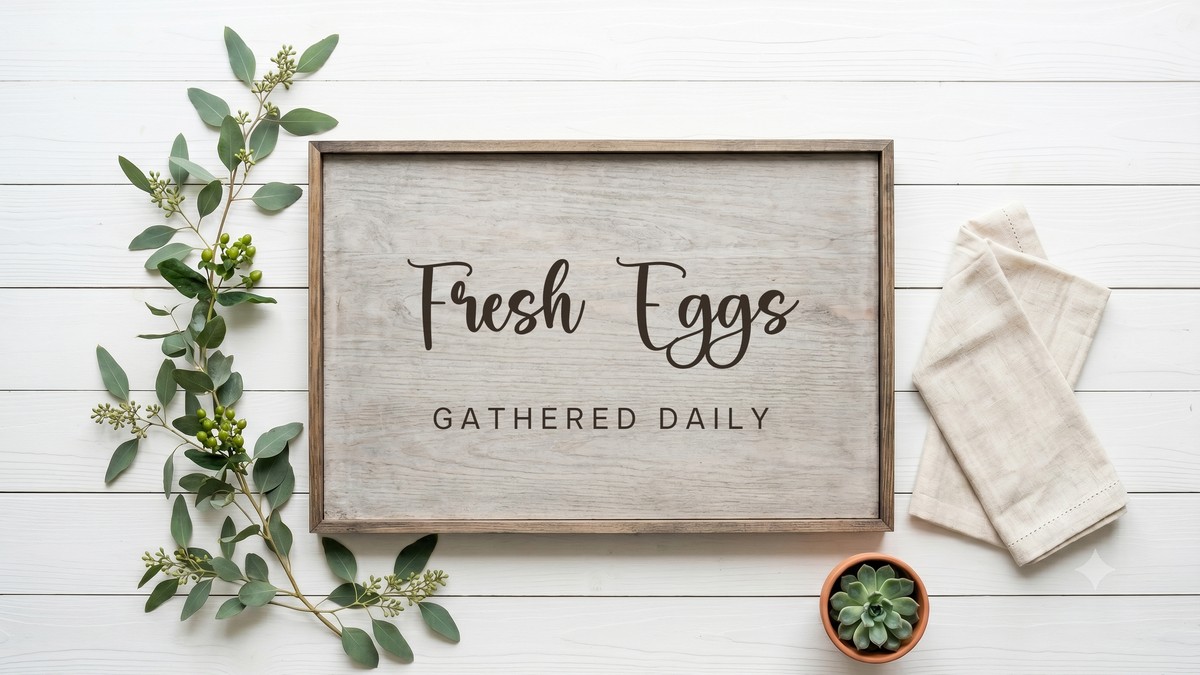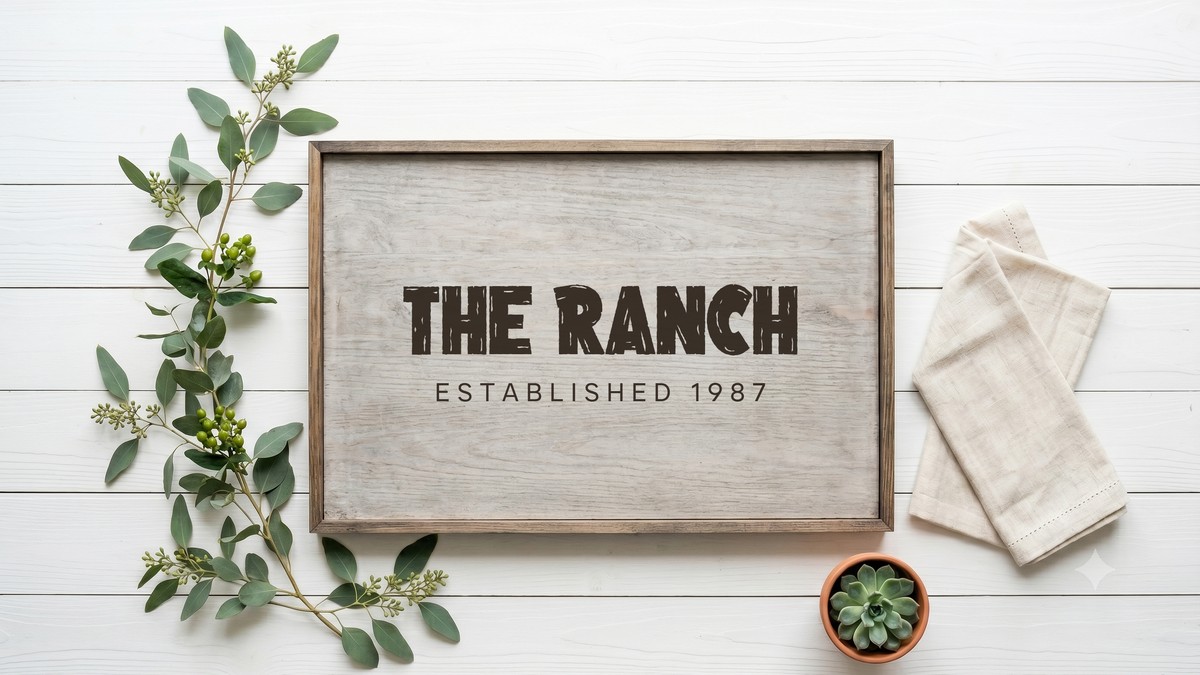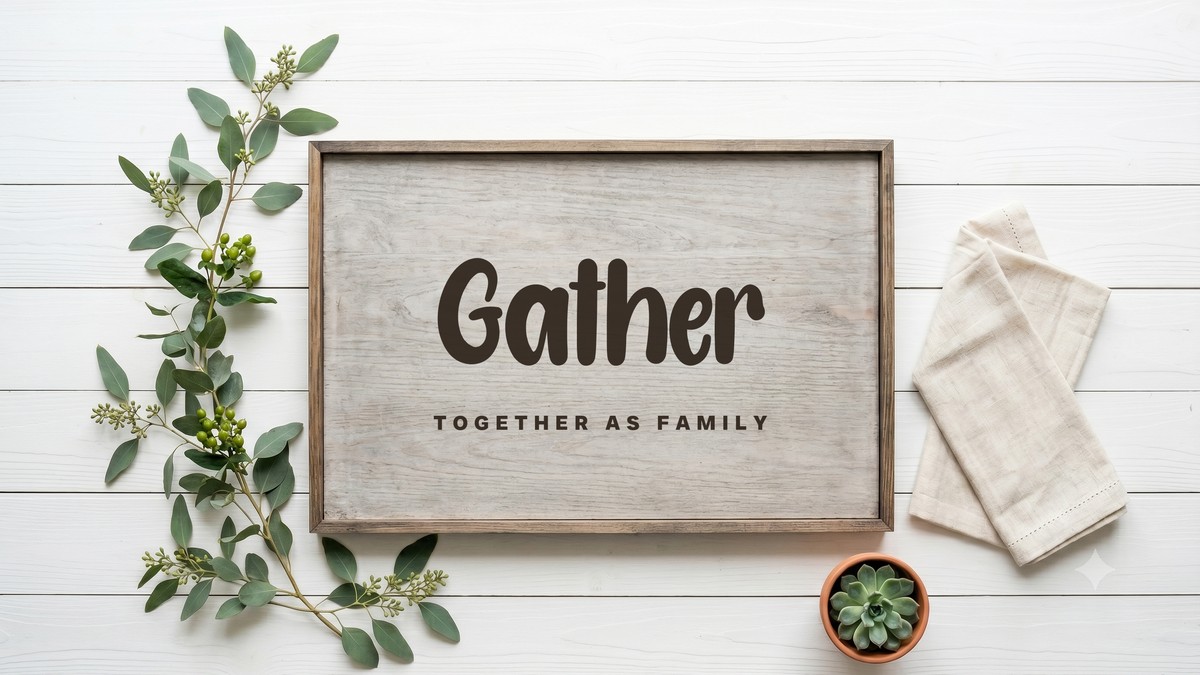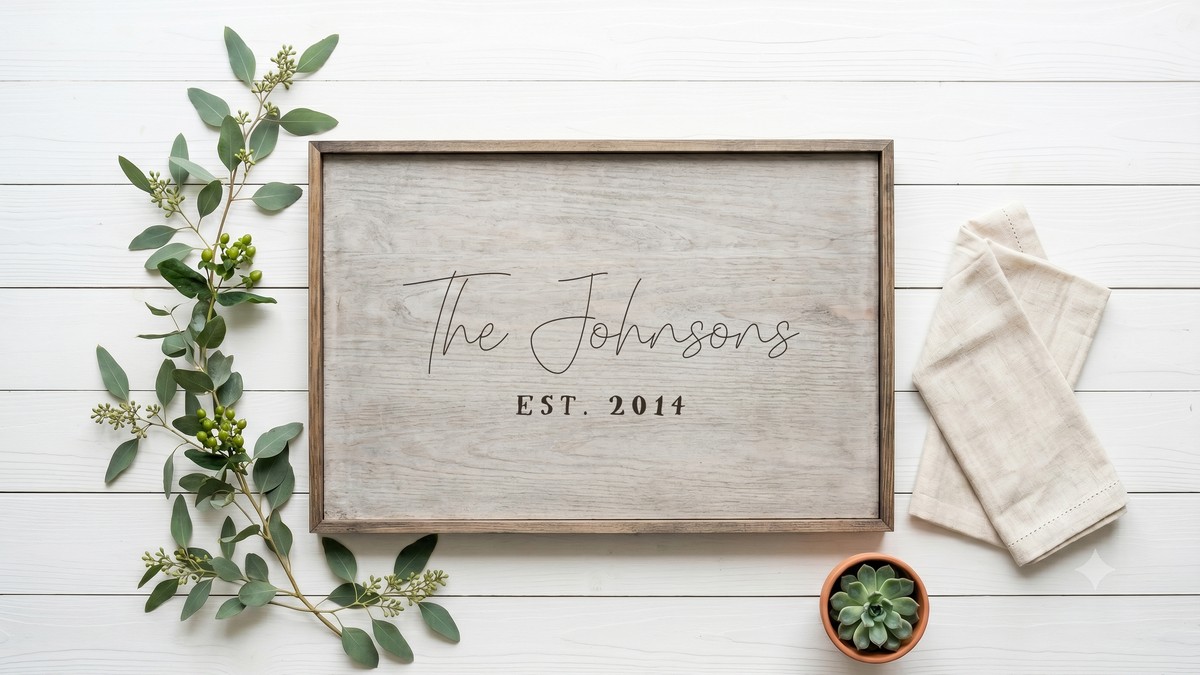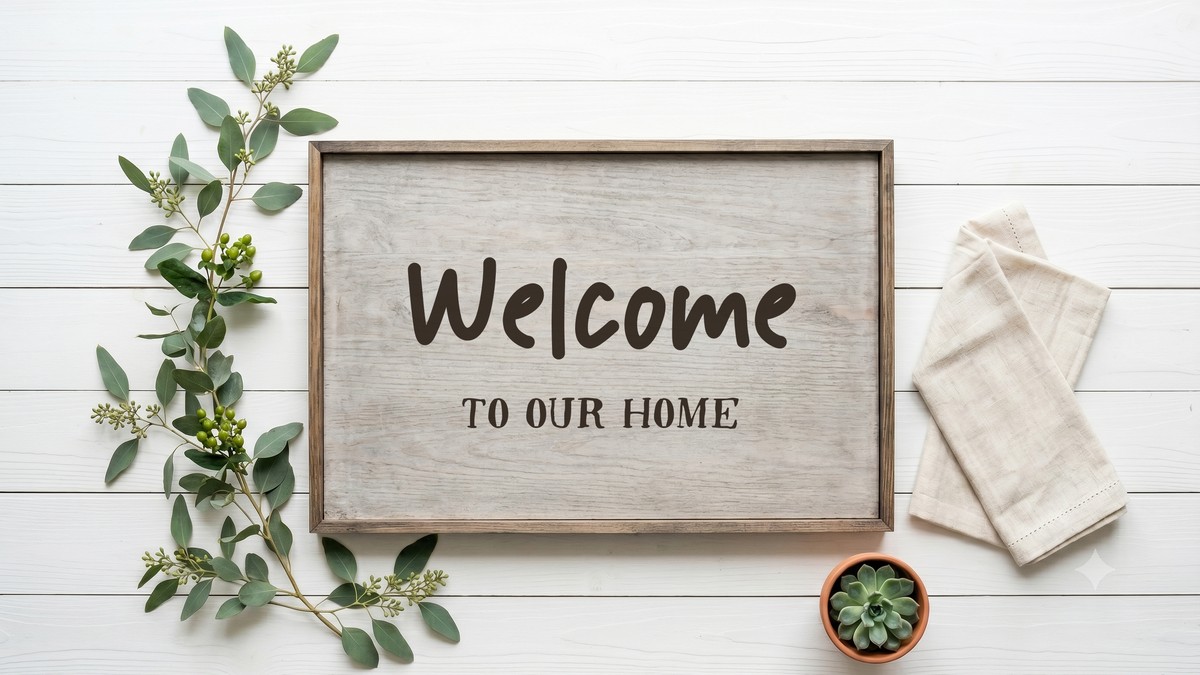
10 Farmhouse Font Pairings for Signs & Decor (Free Fonts)
A farmhouse sign lives or dies on its lettering. Whether it is a hand-painted plank over the kitchen table or a framed welcome by the front door, the whole cozy, collected-over-time feeling comes down to the two fonts you choose. Pick a pairing that feels warm and rooted and even a plain word like Gather starts to look like it belongs on a reclaimed-wood sign in a sunlit farmhouse hallway.
Farmhouse font pairing is simply the craft of combining two complementary typefaces so each one does a job the other cannot: one characterful rustic or script font to carry the main word, and one clean, quiet font for the smaller line underneath. Get that contrast right and the sign reads as charming rather than cluttered. Below are five farmhouse pairings – every one built from free fonts you can download here on VectorDad – rendered onto a real rustic wood-sign mockup so you can see exactly how each looks on a plank before you download a thing.
How to Pair Fonts for a Farmhouse Sign: 4 Quick Principles
Before the examples, here are the rules that make a two-font farmhouse sign work. Keep these in mind and you can build cozy lettering far beyond this list.
• Contrast character with calm. Pair one expressive font – a flowing script or a weathered display face – with a calmer, simpler partner. Two decorative fonts fight each other; a rustic main word over a quiet supporting line feels intentional.
• Keep it rustic but readable. Farmhouse style leans handmade, but the sign still has to be legible from across the room. Let the personality live in the main word and keep the second line clean and unfussy.
• Let the wood breathe. Generous spacing is what separates a polished sign from a busy one. Add a little letter-spacing to short caps lines and leave plenty of plank around the text so it never feels crowded.
• Match the mood. Let the main font set the tone – bouncy script for cheerful and modern, rough brush for rugged and rustic, fine signature for elegant heritage – then choose a neutral companion that stays out of its way.
5 Farmhouse Font Pairings for Signs & Decor
1. FarmHouse + Just Sans
Gather and Together as Family farmhouse font pairing on a rustic wood sign mockup
Why it works: FarmHouse is a chunky, rounded brush script with genuine hand-painted charm – the quintessential “Gather” sign font. Pairing it with clean, widely spaced Just Sans caps grounds all that personality so the supporting line stays calm and effortlessly readable. A bouncy script over a quiet geometric sans is the modern-farmhouse formula in a nutshell.
Use it for: kitchen and dining-room signs, “Gather” and “Blessed” plaques, entryway decor, and any cheerful modern-farmhouse piece.
2. Dusty Ranch + Just Sans
The Ranch established 1987 farmhouse font pairing on a rustic wood sign mockup
Why it works: Dusty Ranch is a rough, dry-brush display face that looks like it was stamped on with old paint – rugged, weathered and full of character. Because it is so textured, it needs the calmest possible partner, and Just Sans delivers, keeping the founding year crisp and legible beneath the distressed mark.
Use it for: ranch and farmstead signs, established-year plaques, garage and workshop decor, and anything leaning into a rugged, country-western look.
3. Southern Script + Quincy
The Johnsons est 2014 farmhouse script and serif font pairing on a wood sign mockup
Why it works: Southern Script is a fine, flowing signature script with real handmade elegance – gorgeous for a family name. Pairing it with the vintage serif Quincy for the small caps line adds a touch of heritage polish underneath and turns a pretty signature into a balanced, keepsake-worthy lockup.
Use it for: family name and established-date signs, wedding and anniversary gifts, monogram pieces, and elegant heritage-farmhouse decor.
4. Welcome Home + Quincy
Welcome to our home farmhouse handlettered and serif font pairing on a wood sign mockup
Why it works: Welcome Home is a friendly, hand-lettered marker font that feels warm and approachable the second you see it. Setting the supporting line in the refined serif Quincy adds just enough contrast to keep the lockup from feeling too casual – cozy up top, classic underneath.
Use it for: entryway and porch welcome signs, mudroom decor, guest-room plaques, and any sign meant to feel friendly and inviting.
5. Country Wedding + Just Sans
Fresh Eggs gathered daily farmhouse script font pairing on a rustic wood sign mockup
Why it works: Country Wedding is a relaxed, casual script with a sweet handwritten feel – perfect for the playful little signs that make a farmhouse feel lived-in. Anchoring it with spaced Just Sans caps keeps the message clear so the script can stay loose and charming.
Try one of these five pairings on your next sign, then remix the same fonts into your own cozy lettering. With the right two typefaces – and the mockups above to guide you – even a single word like Gather can turn a plain plank into a sign worth hanging.